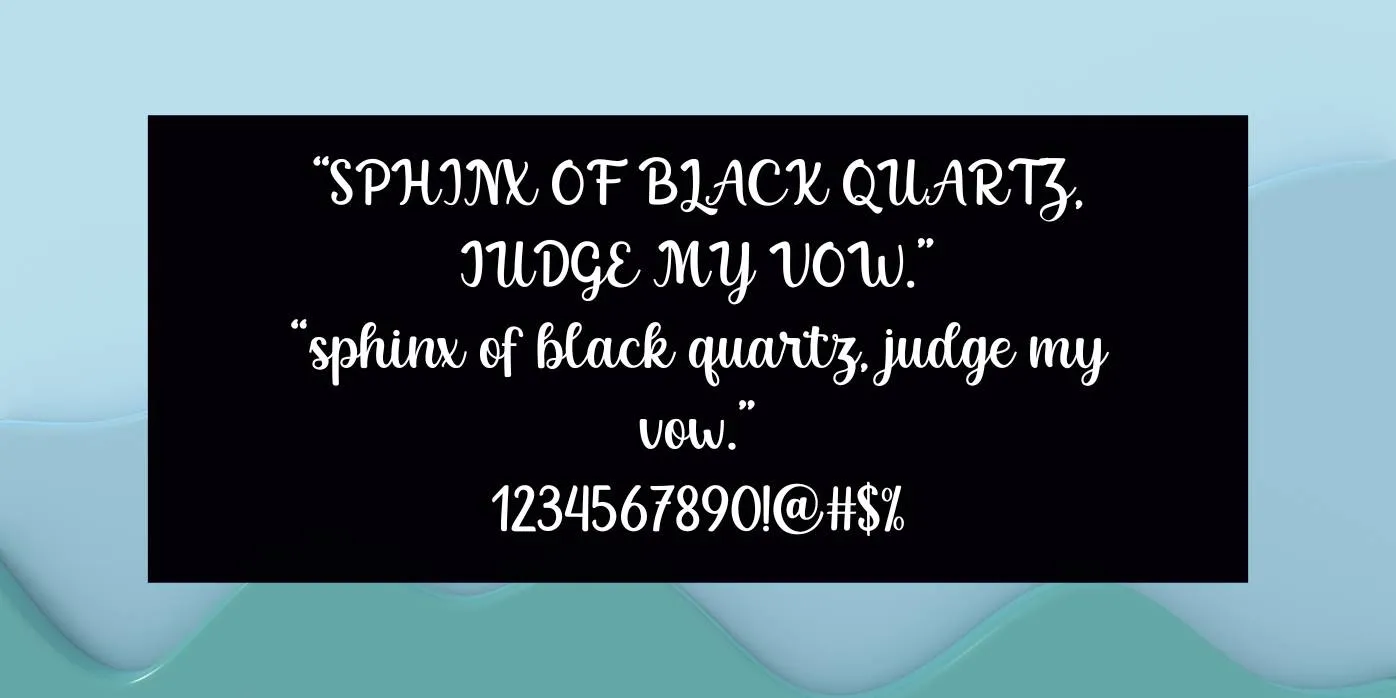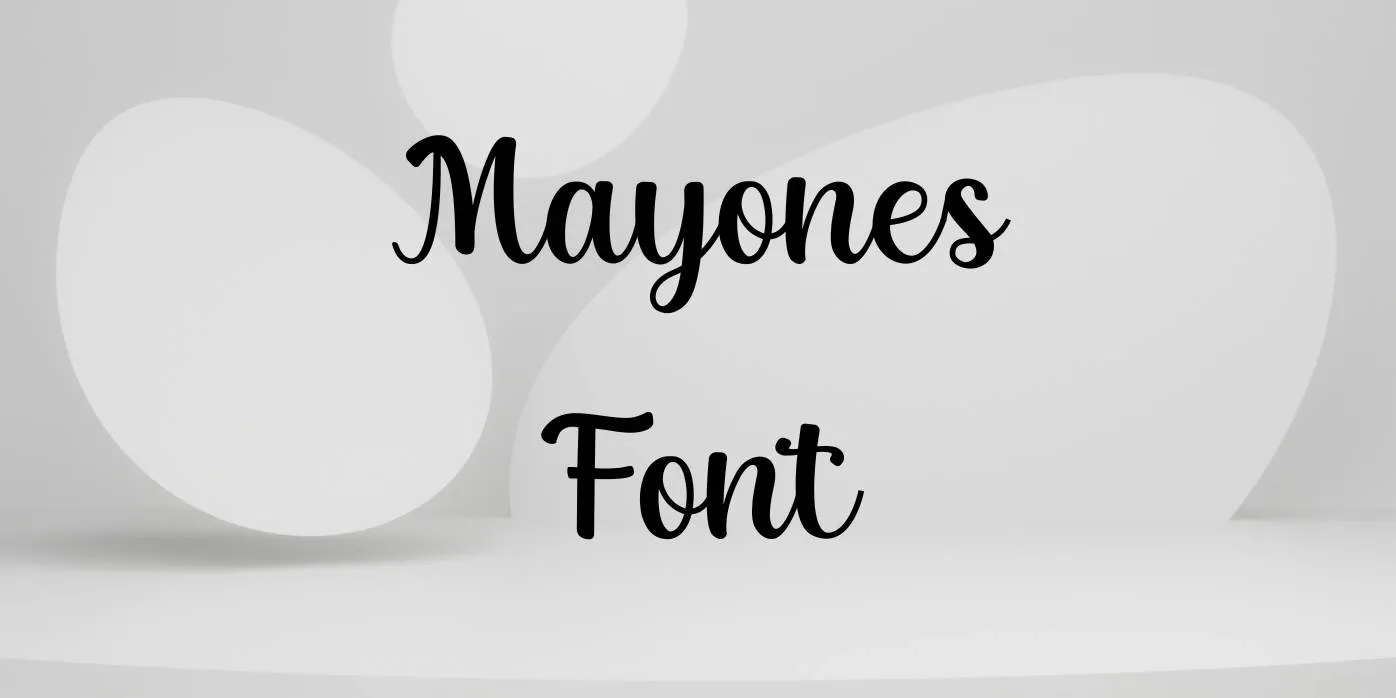
Mayones Font
Manjali Studio is the designer of Mayones Font. This typeface has some extraordinary characters that attract the attention of the client to the project. The characters of this texture are fantastic. You can use this typeface in a lot of projects and designs.
You can also use this typeface in web designing, Motion graphics, and graphic design. You can also make a lot more from this typeface.